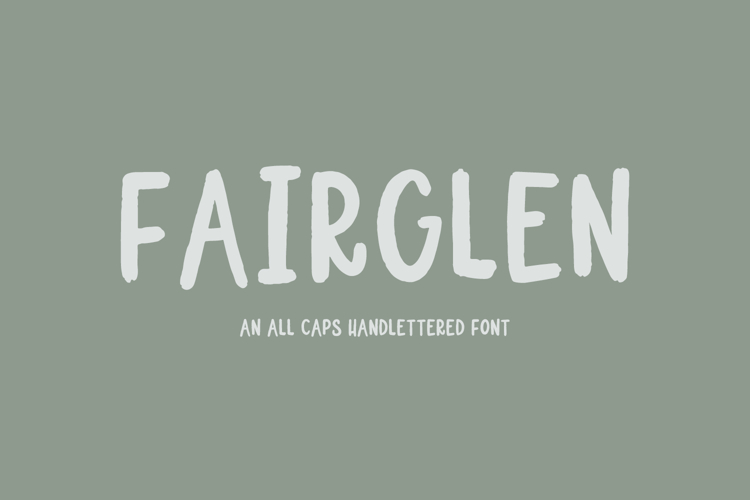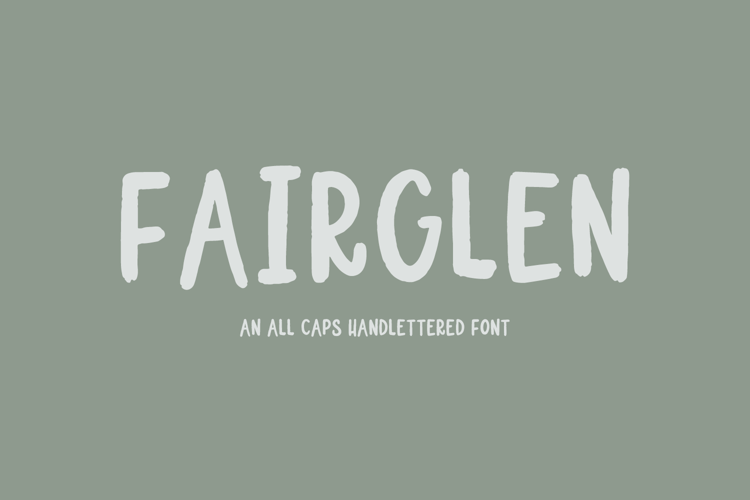
Meet Fairglen Sans, an all-caps font. Fairglen is a bit textured, and resembles marker writing.
Fairglen Sans is best for:
- classrooms & teachers, for bold attention-grabbing words in projects or bulletin boards
- header elements that need a fun look & feel
Fairglen includes:
- all uppercase characters - also programmed in lowercase glyph spots